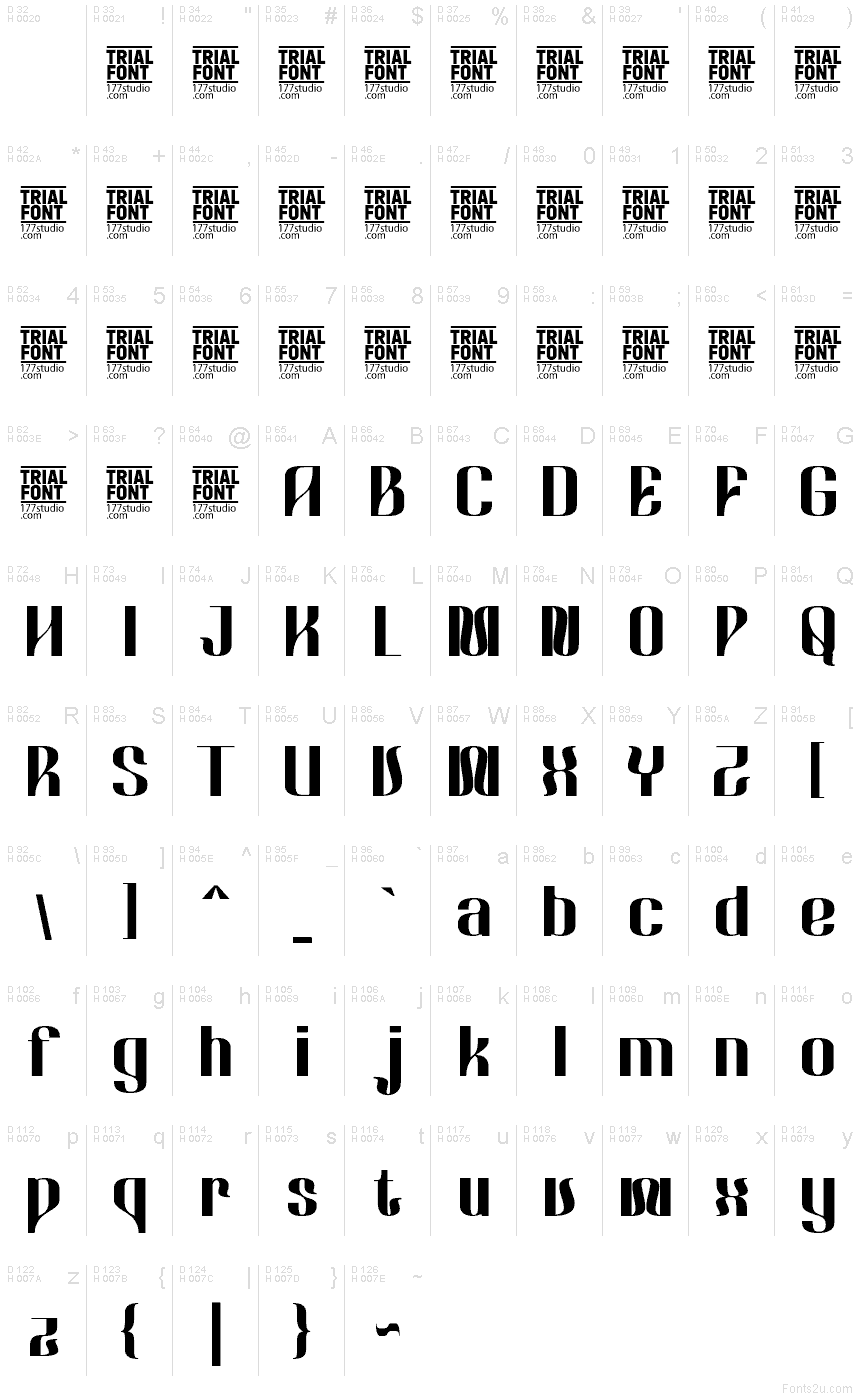
WHETHER SAVORING DEMO Bold
Whether Savoring Bold font by 177Studio is a free decorative display typeface with a tall, ultra‑narrow stance and hypnotic vertical waves. Each letter feels like it’s been carved from folded ribbon—sleek, glossy, and slightly surreal—creating a striking rhythm when words are stacked or spaced tightly. Part of the Whether Savoring family, it brings a dramatic, almost psychedelic elegance that instantly turns a simple title into artwork.
Using Whether Savoring Bold, your headlines snap into focus on posters, album covers, fashion branding, packaging, event titles, and experimental book covers. The dense forms shine at large sizes where the sculpted curves can really breathe; for smaller text, pair this free font with a clean geometric sans to keep layouts readable while the display work steals the spotlight.